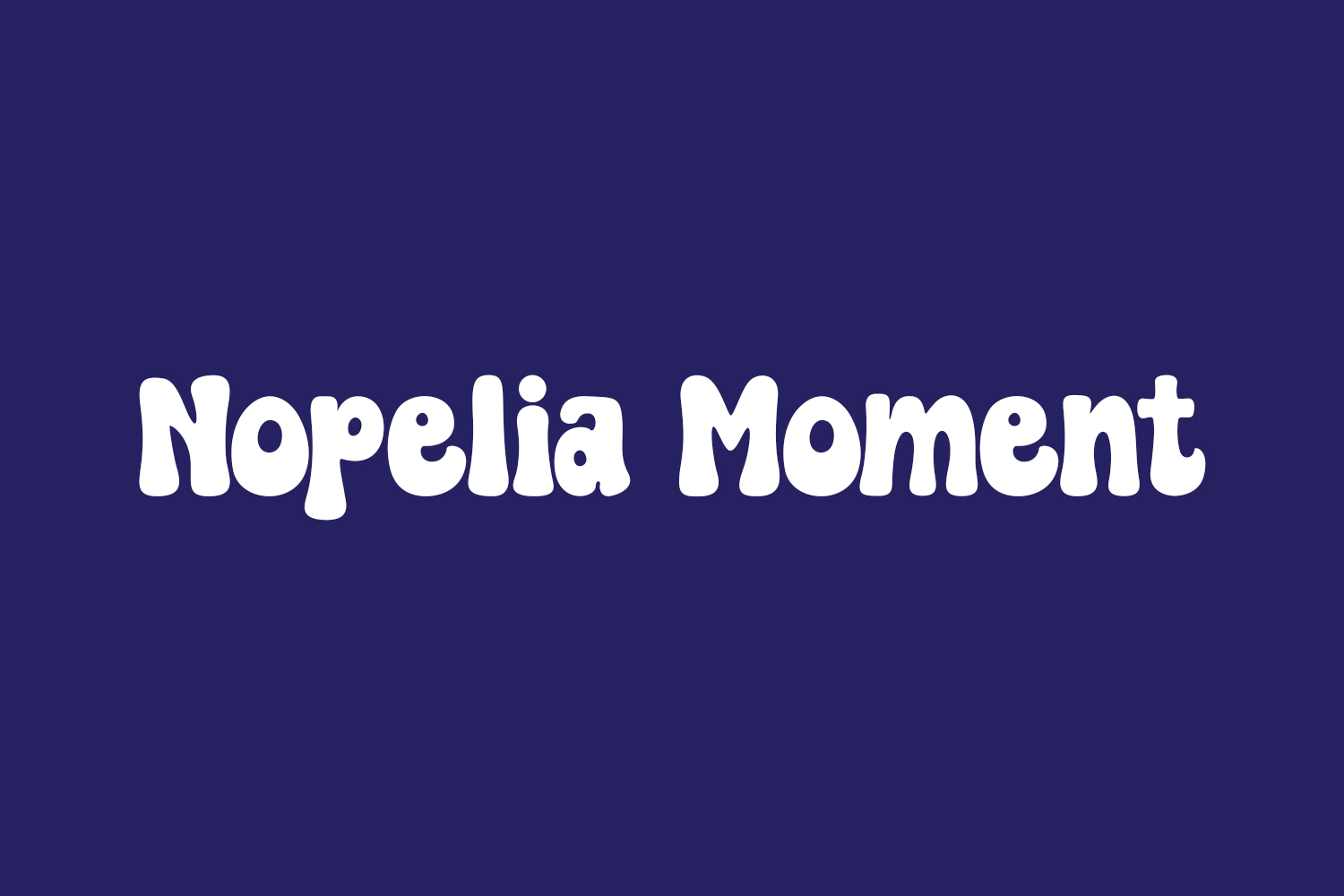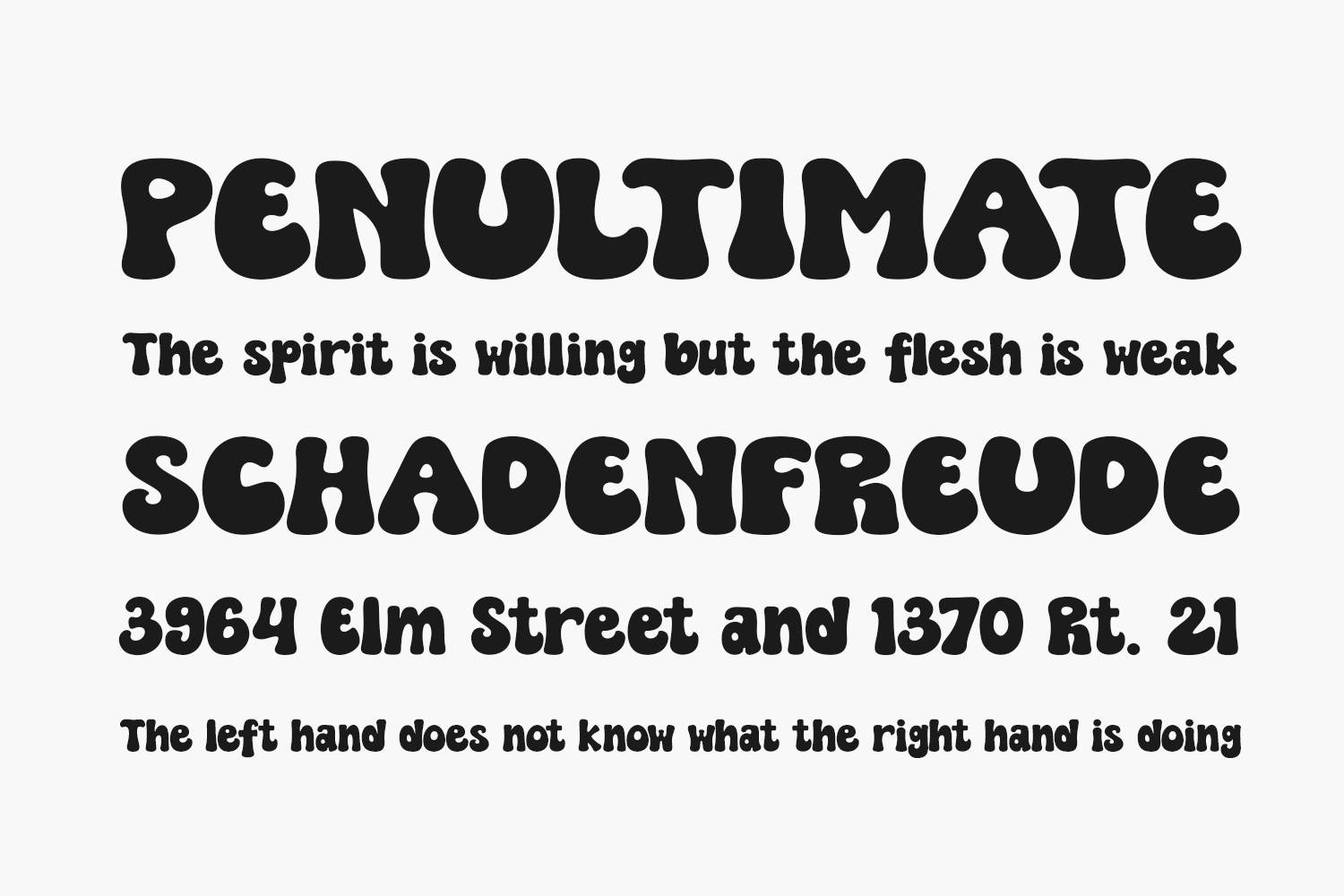
Step into the extraordinary with Nopelia Moment Free Font, a groovy display font designed to ignite your creativity! Whether you’re designing t-shirts, stickers, book covers, children’s books, social media posts, invitations, or anything in between, this font is perfect for adding that special touch.
With its unique and eye-catching style, Nopelia Moment will captivate your audience and make your projects stand out from the crowd. Its versatility lends itself well to various mediums, allowing you to seamlessly incorporate it into your designs. Nopelia Moment Free Font is free for personal use only. Please purchase the full version for commercial use.